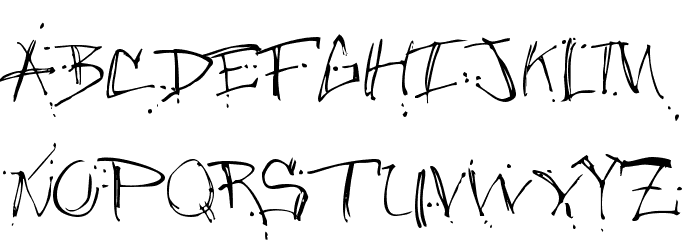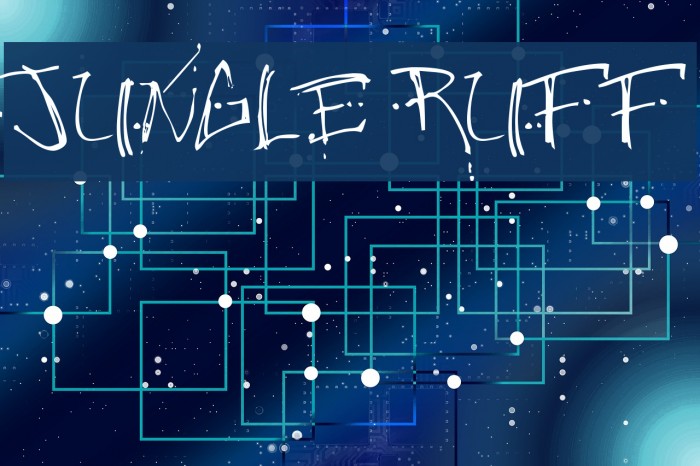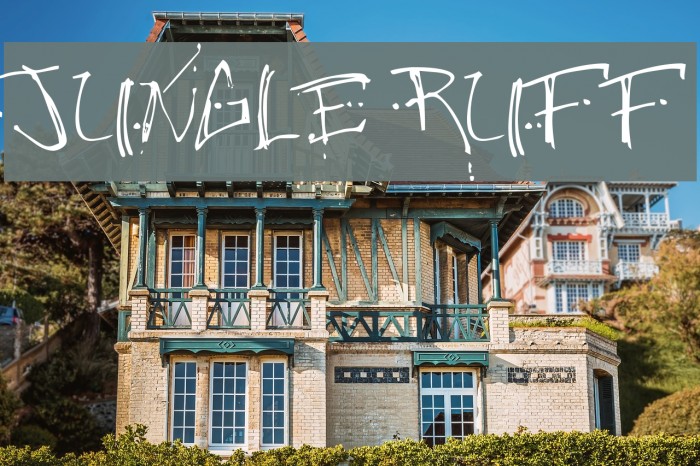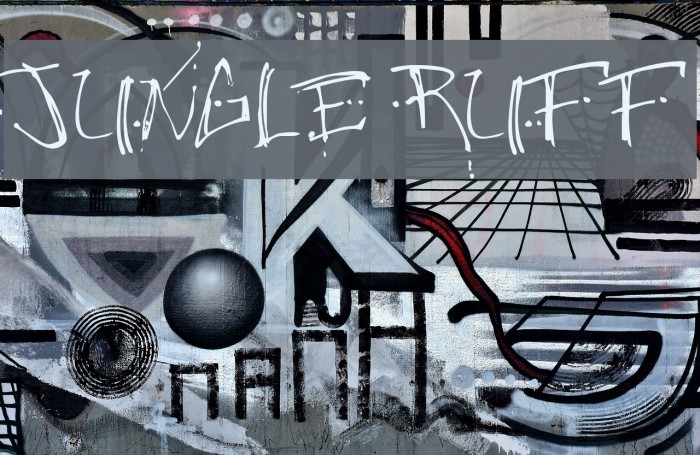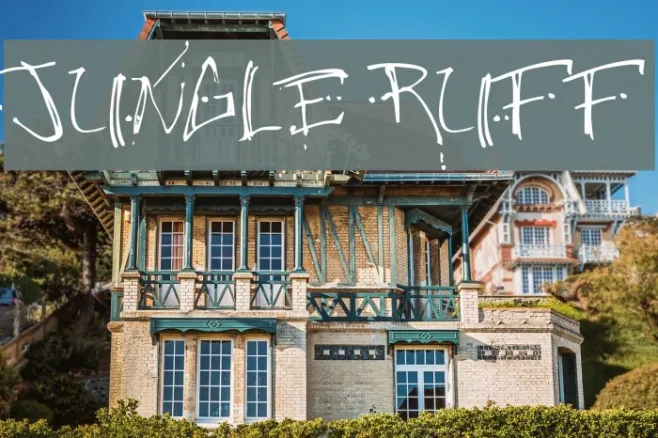
Jungle Ruff Font
This font features a dynamic and edgy style, characterized by its rough, hand-drawn appearance. The letters exhibit a sense of movement and spontaneity, with irregular strokes and splatters that give it a graffiti-like feel. The uppercase and lowercase letters maintain a consistent aesthetic, with angular forms and a slightly chaotic arrangement. The font lacks traditional structure, embracing an artistic and rebellious vibe. It is particularly suited for projects that require a bold and unconventional look, such as street art-inspired designs, music album covers, or edgy branding materials.
A dynamic, graffiti-inspired font with rough, hand-drawn strokes and a rebellious aesthetic.
- Proposed Projects: Ideal for street art designs, music album covers, edgy branding, and creative posters.
- Overall Style: Modern, Artistic